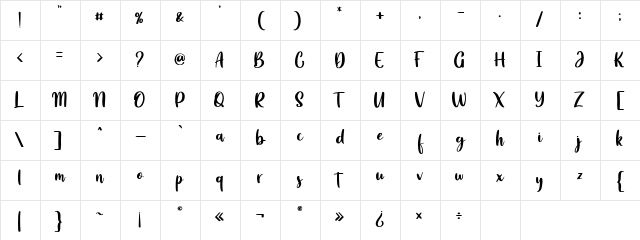
Angelina is a composed and adaptable typeface that performs quietly and consistently across a wide range of design contexts.
Pro Tip: Use Angelina in both headline and body roles to test its range before committing to a single application.